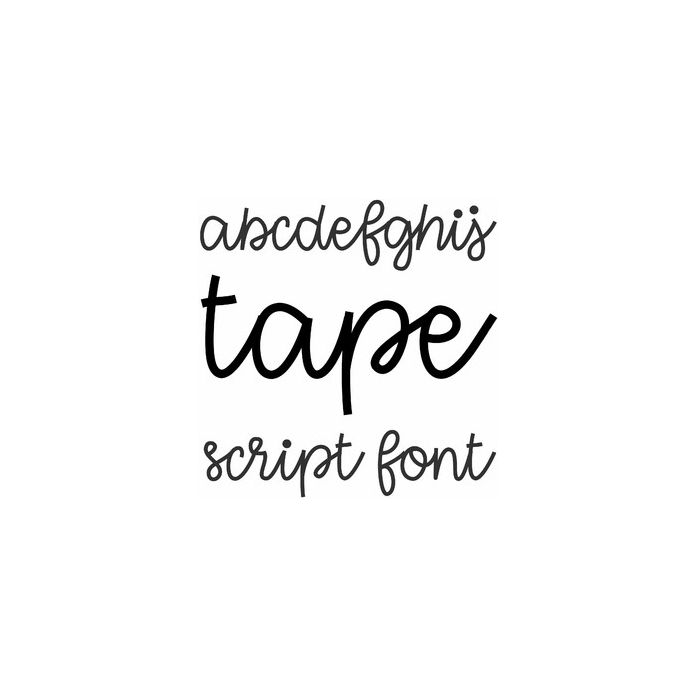
tape script font
Tape is a cute boxy script font for crafts, cards, monograms, and personalization projects. Includes alphabet, numbers, and punctuation.